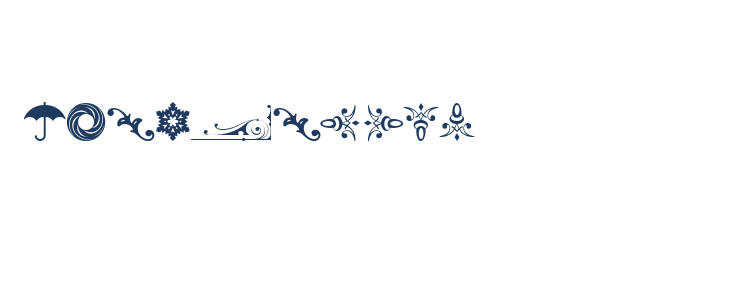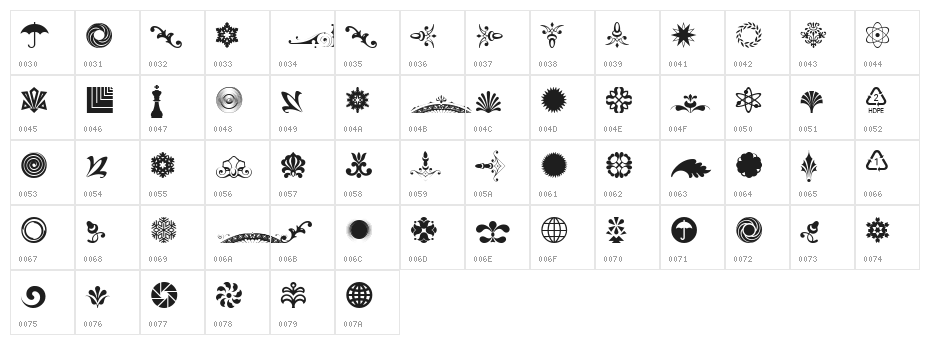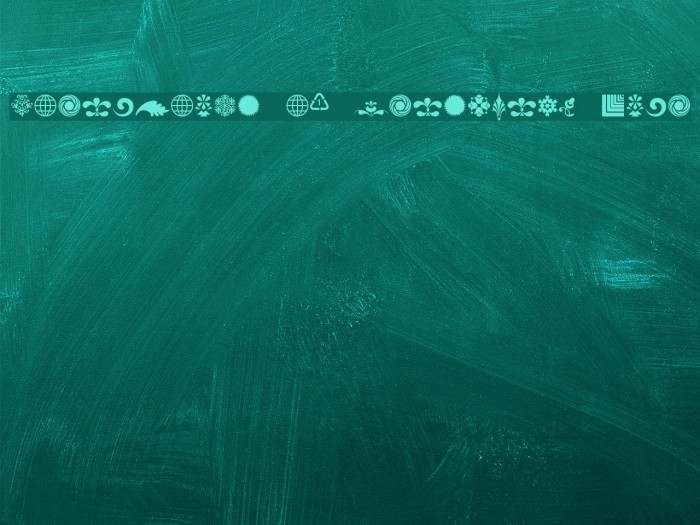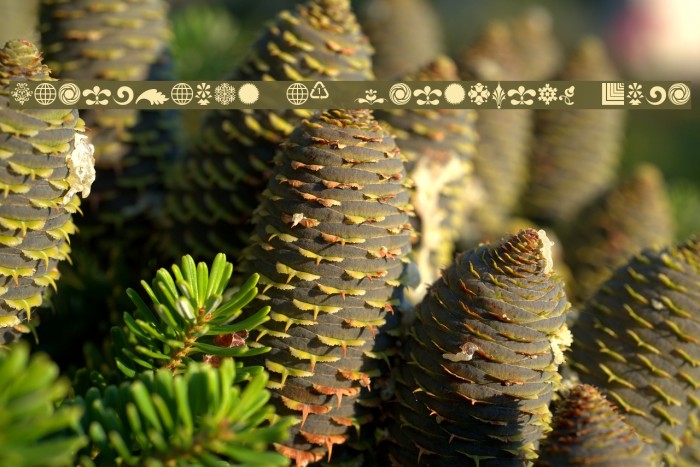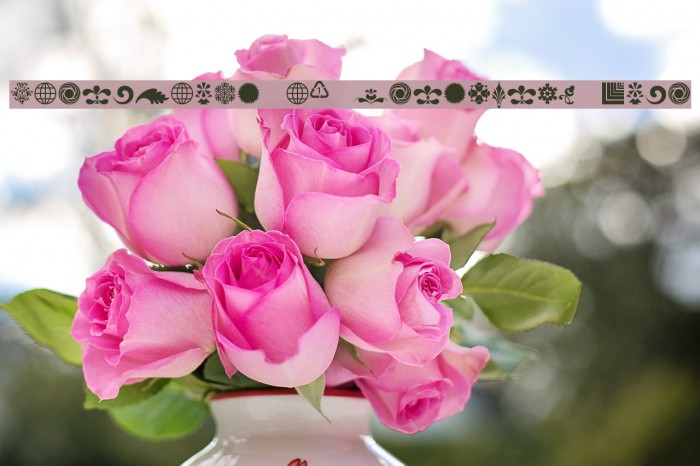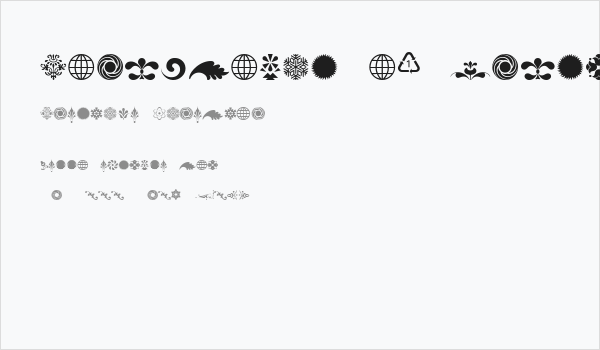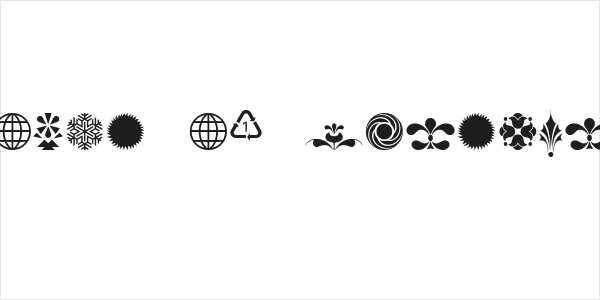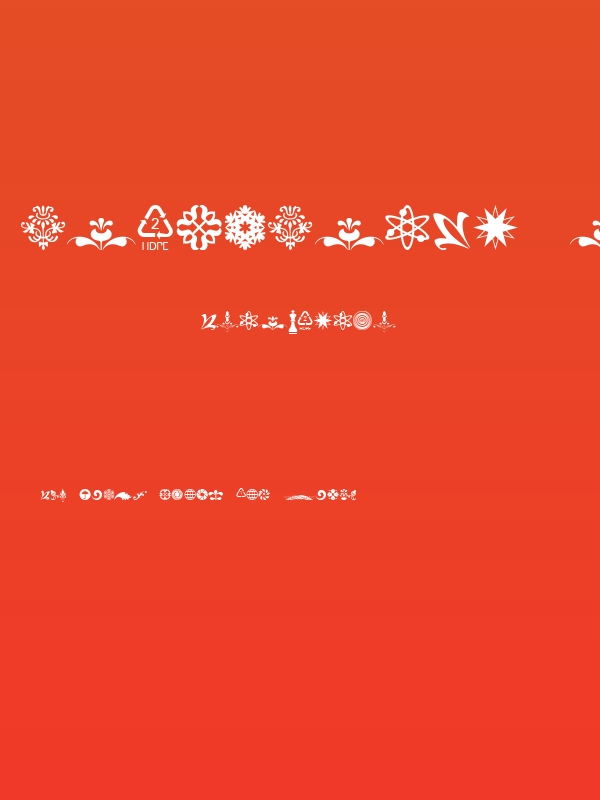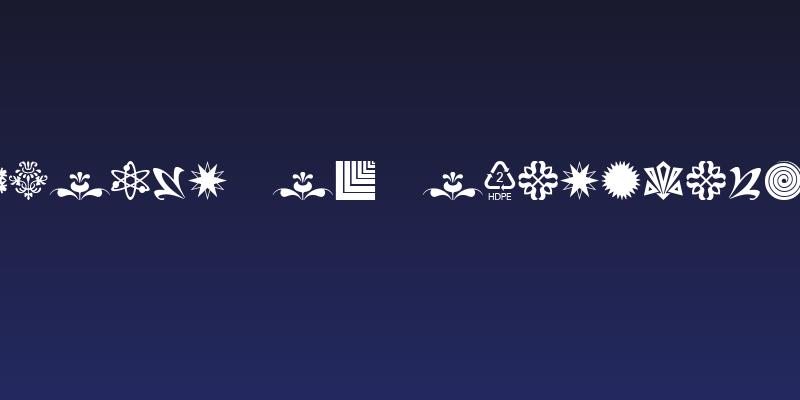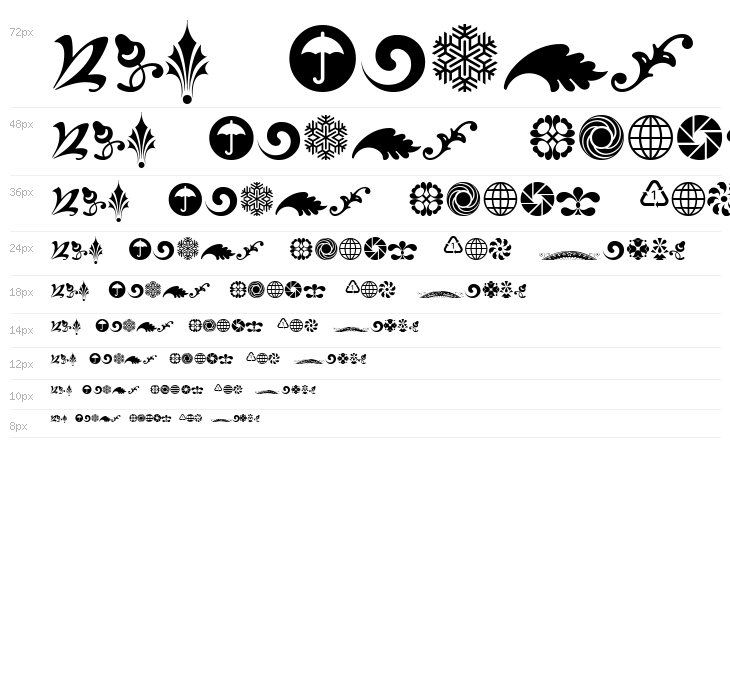
Cornucopia of Ornaments Fpur Font
Cornucopia of Ornaments Fpur Description
A decorative collection of various ornamental glyphs, including floral motifs, geometric shapes, swirls, snowflakes, and symbols such as recycling and umbrella icons. The designs are bold, highly stylized, and primarily black, offering a mix of organic and abstract forms.
| Overall Style | Decorative, Ornamental, Eclectic |
| Use Case | Borders, Dividers, Decorative elements, Branding, Invitations |
| Proposed Projects | Invitations, certificates, borders, dividers, packaging, branding, scrapbooking, and decorative accents. |